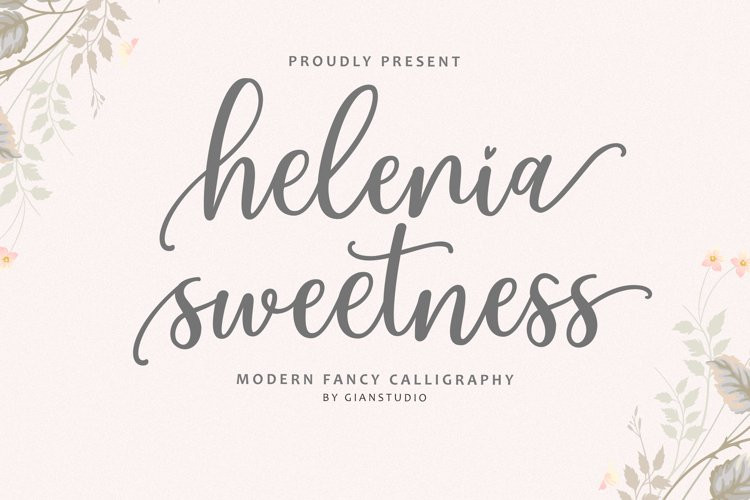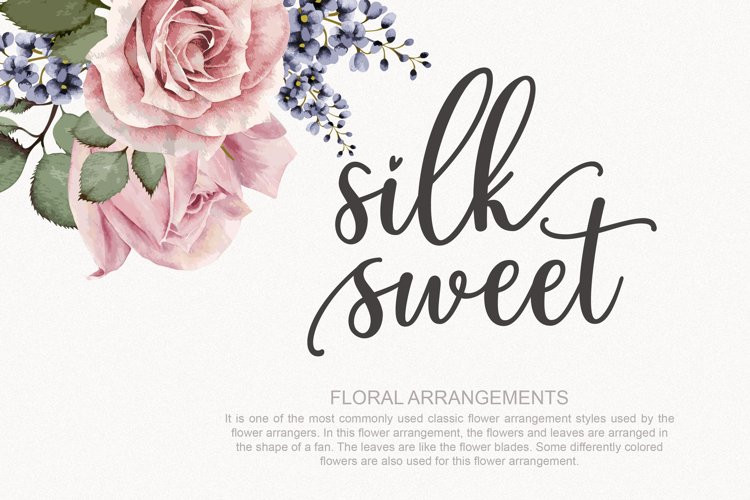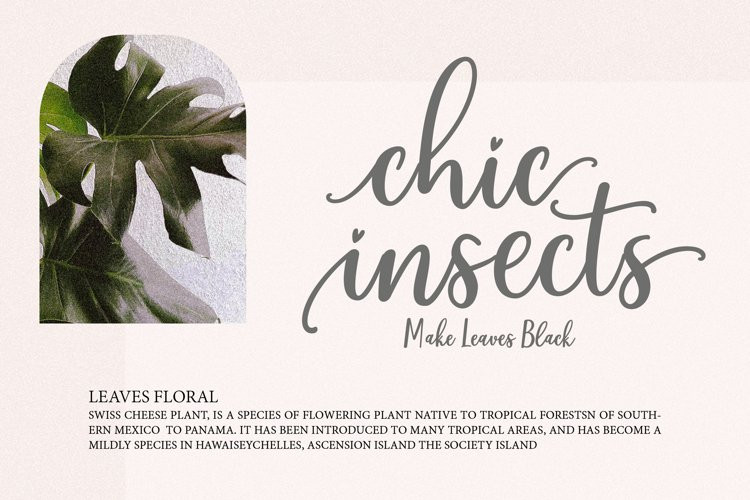
Helenia Sweetness Font
Helenia Sweetness FontHelenia Sweetness is modern calligraphy script font, every single letters has been carefully crafted to make your text looks beautiful. With modern script style this font will perfect for many different project, example: invitations, greeting cards, posters, name card, quotes, blog header, branding, logo, fashion, apparel, letter, stationery and more!
Helenia Sweetness: Uppercase & Lowercase International Language & Symbols Support Punctuation & Number PUA Unicode Range Standard Stylistic Alternates Stylistic Character Variant of ligatures.